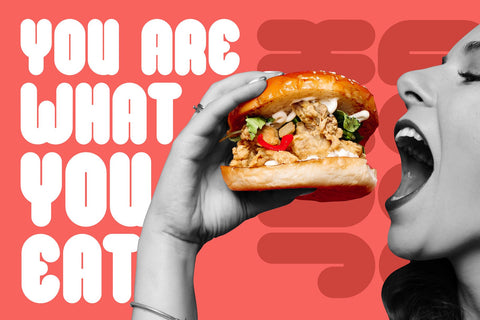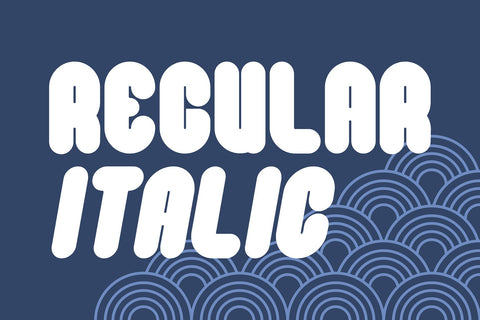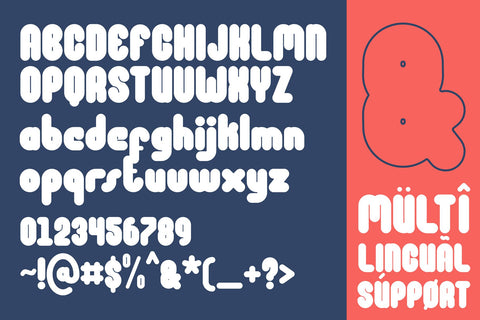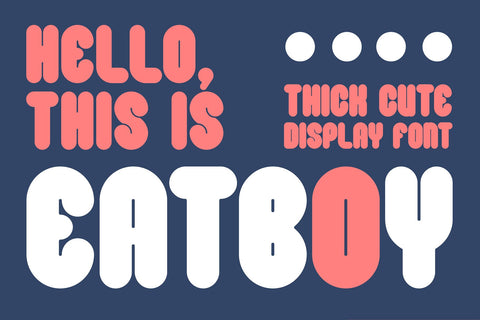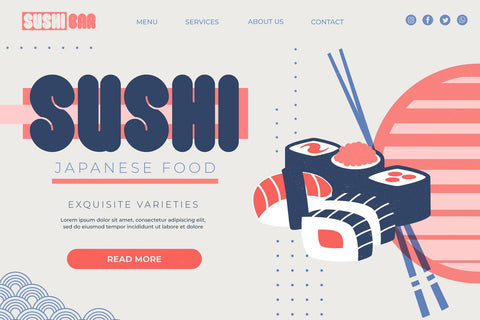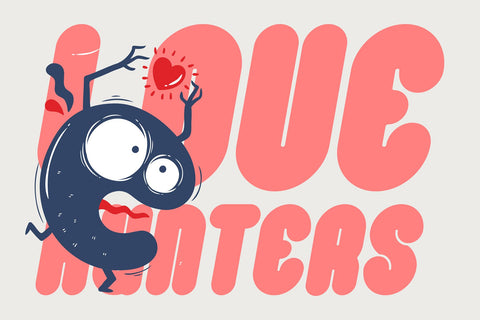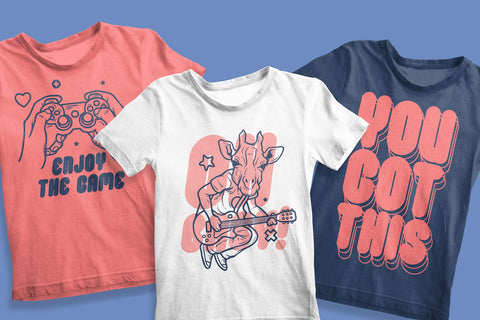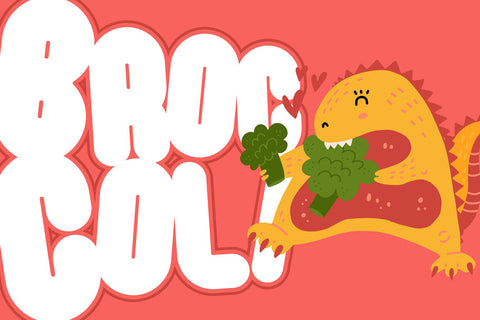
Eatboy - Thick Display Font
Say hello to Eatboy font.
Made with love and joy. Comic look, Bold and thick, will make your design more beautiful, cute, fun, and colorful. It comes With two awesome styles.